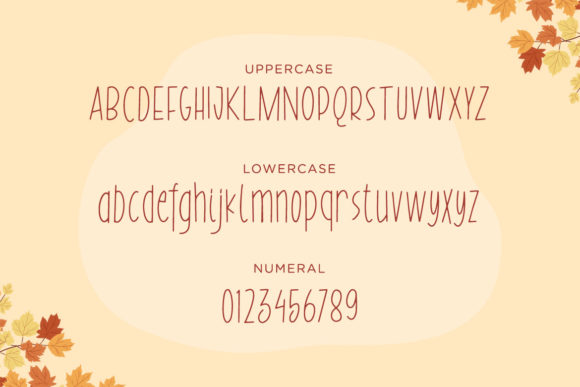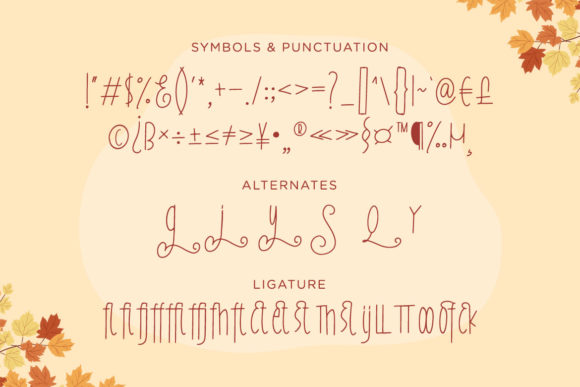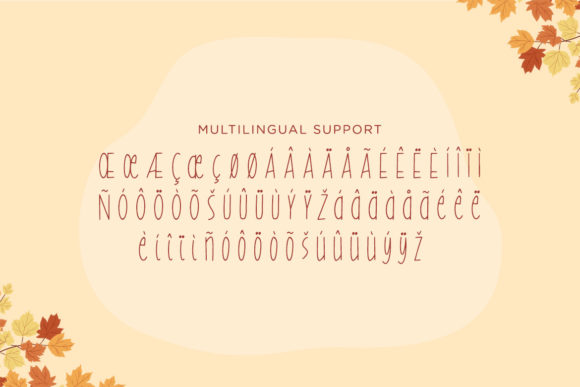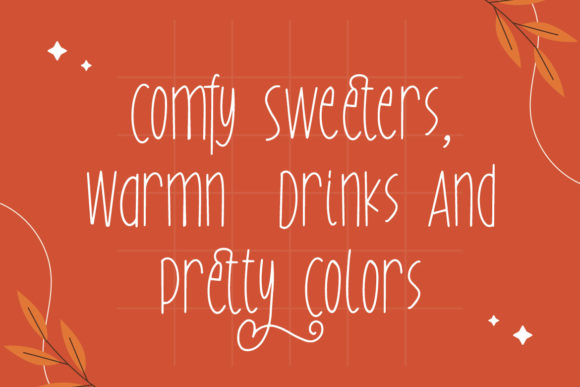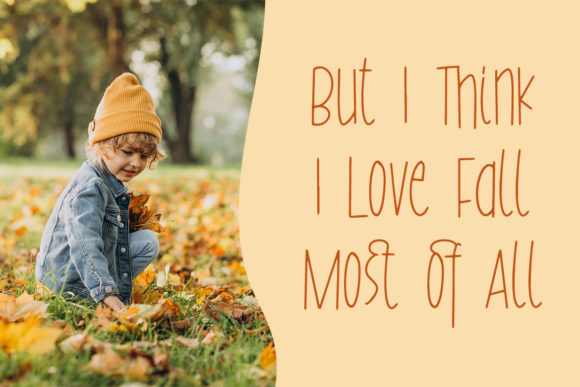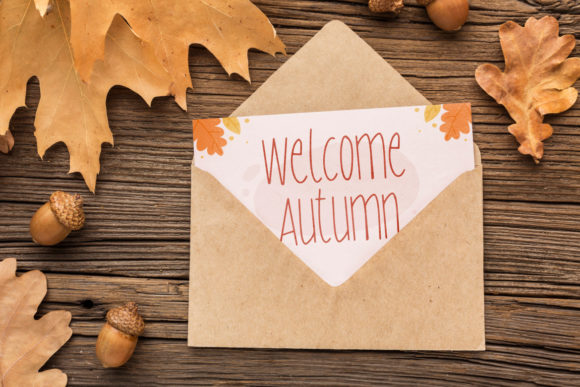
Introducing Fall Season Font: A Whimsical and Modern Handwritten Font
As the seasons change and the air grows crisper, designers and crafters alike are on the lookout for fonts that evoke the cozy, magical feeling of fall. If you’re searching for a font that will add a touch of whimsy and wonder to your designs, look no further than the Fall Season Font. This adorable, thin-lettered handwritten font is the perfect addition to any design project, from invitations and greeting cards to blog posts and social media graphics.
A Modern yet Whimsical Style
Fall Season Font boasts a modern yet whimsical style that will undoubtedly immerse your designs into a magical world. Its thin, delicate letters are carefully crafted to evoke a sense of wonder and enchantment, making it perfect for designers and crafters who want to add a touch of personality to their work. Whether you’re creating a festive fall-themed design or simply looking for a font that will add a dash of whimsy to your everyday projects, Fall Season Font is the perfect choice.
Fall Season Font is a versatile font that is perfect for a wide range of design applications. Here are just a few ways that designers and crafters can use this beautiful font:
- Invitations and Greeting Cards: Use Fall Season Font to create beautiful, one-of-a-kind invitations and greeting cards that will make your recipients feel special.
- Blog Posts and Social Media Graphics: Add a touch of whimsy to your blog posts and social media graphics with Fall Season Font, perfect for creating eye-catching headlines and titles.
- Crafting Projects: Use Fall Season Font to add a personal touch to your crafting projects, from scrapbooking and journaling to card making and paper crafting.
- Branding and Packaging: Fall Season Font is also perfect for branding and packaging applications, adding a touch of personality and whimsy to your brand’s identity.
Key Features of Fall Season Font
Here are just a few key features that make Fall Season Font so special:
- Thin-Lettered Design: Fall Season Font features a thin, delicate design that is perfect for creating elegant and sophisticated designs.
- Handwritten Style: This font boasts a beautiful, handwritten style that adds a touch of personality and whimsy to any design.
- Modern yet Whimsical: Fall Season Font combines modern and whimsical elements to create a truly unique and eye-catching design.
- Easy to Read: Despite its delicate design, Fall Season Font is easy to read, making it perfect for body text and other applications where legibility is key.
Tips for Using Fall Season Font
Here are a few tips for getting the most out of Fall Season Font:
- Pair with Bold Fonts: Pair Fall Season Font with bold, contrasting fonts to create eye-catching headlines and titles.
- Use in Combination with Images: Use Fall Season Font in combination with beautiful images of fall scenery, flowers, and other seasonal motifs to create stunning designs.
Fall Season Font is a beautiful, whimsical font that is perfect for designers and crafters looking to add a touch of magic to their designs. With its thin, delicate letters and modern yet whimsical style, this font is sure to immerse your designs into a magical world. Whether you’re creating invitations, greeting cards, blog posts, or social media graphics, Fall Season Font is the perfect choice. So why wait? Download Fall Season Font today and start creating your own magical designs!